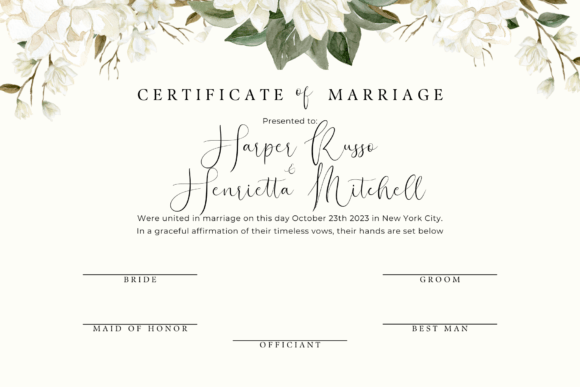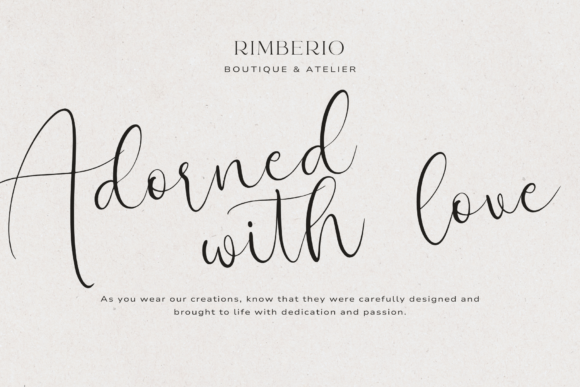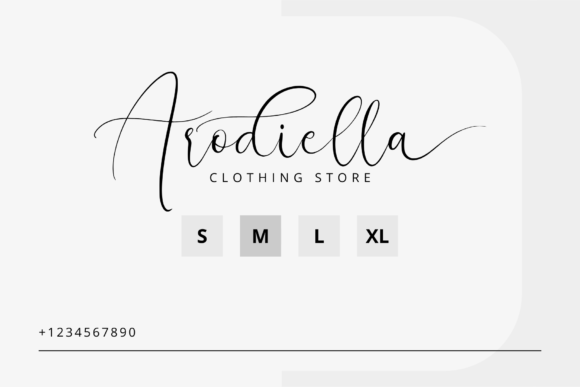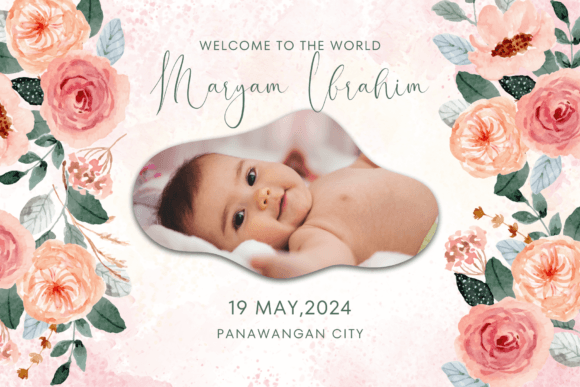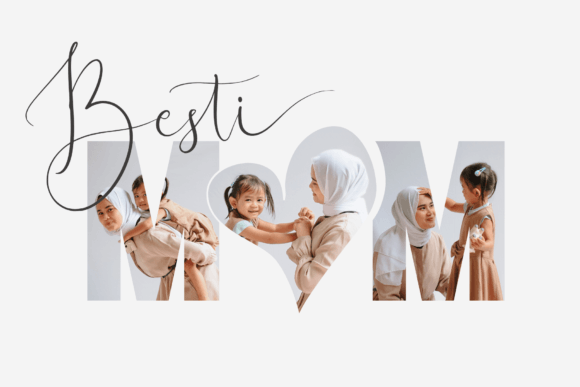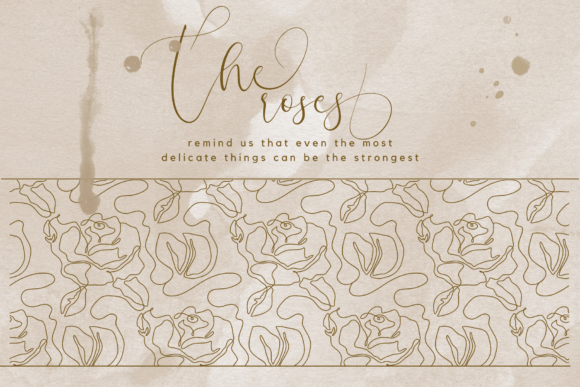
Introduction to Pictural Font Font
Fonts play a crucial role in design, and the Pictural Font font is a typeface that brings both character and versatility to any project. Whether you’re working on a branding project, a website, or a print design, the Pictural Font font offers a unique style that can elevate your work.
Pictural is a sophisticated and versatile typeface designed to bring a touch of elegance and creativity to your projects.
Whether youβre working on branding, invitations, posters, or digital content, Picturalβs unique style will elevate your design .
Key Features of Pictural Font Font
Why Choose Pictural Font Font?
The Pictural Font font is more than just a typeface β it’s a design tool that helps you communicate your message with style and clarity. Its unique character set and versatile design make it suitable for a wide range of applications, from elegant invitations to bold headlines.
With its carefully crafted letterforms and balanced proportions, the Pictural Font font ensures readability and visual appeal across all mediums.
What makes Pictural Font font special?
The Pictural Font font stands out with its unique design, exceptional readability, and versatility across various design applications.